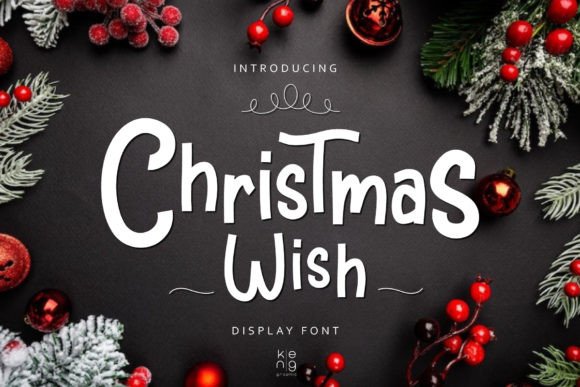
Christmas Wish Font: The Ultimate Guide to Elevate Your Holiday Creations
As the holiday season approaches, designers and crafters are on the lookout for the perfect font to add a touch of magic to their Christmas creations. Look no further than the Christmas Wish font, a bold and modern handwritten font that has been expertly designed to give your projects a whimsical look. In this comprehensive article, we’ll dive into the world of Christmas Wish font, exploring its features, benefits, and uses, as well as provide tips and inspiration for incorporating it into your holiday designs.
What is Christmas Wish Font?
Christmas Wish font is a bold and modern handwritten font that has been carefully crafted to bring a touch of festive fun to your designs. With its whimsical and playful style, this font is perfect for creating eye-catching holiday projects, from Christmas cards and invitations to social media graphics and website headers.
Expertly designed to take your creativity further, Christmas Wish font is a versatile typeface that can be used for a wide range of applications. Whether you’re a designer, crafter, or DIY enthusiast, this font is sure to become a go-to in your holiday design toolkit.
Benefits of Using Christmas Wish Font
So why choose Christmas Wish font for your holiday designs? Here are just a few benefits of using this fantastic font:
- Unique and eye-catching: Christmas Wish font is a one-of-a-kind typeface that will add a touch of personality to your designs.
- Whimsical and playful: This font’s playful style is perfect for creating festive and fun holiday projects.
- Versatile: Christmas Wish font can be used for a wide range of applications, from digital designs to print projects.
Using Christmas Wish Font in Your Designs
So how can you use Christmas Wish font in your holiday designs? Here are a few ideas to get you started:
- Christmas cards and invitations: Add a personal touch to your holiday cards and invitations with this beautiful font.
- Social media graphics: Use Christmas Wish font to create eye-catching social media graphics that will stand out from the crowd.
- Website headers: Add a festive touch to your website headers with this bold and modern font.
- Holiday crafts: Use Christmas Wish font to add a personal touch to your holiday crafts, such as DIY decorations and gift tags.
Tips for Getting the Most Out of Christmas Wish Font
Here are a few tips for getting the most out of Christmas Wish font:
- Experiment with different colors: Try pairing Christmas Wish font with different colors to create a unique and eye-catching look.
- Use it with other fonts: Combine Christmas Wish font with other fonts to create a bold and modern look.
- Pay attention to spacing: Make sure to adjust the spacing between letters to ensure that your text is easy to read.
- Have fun: Don’t be afraid to get creative and try new things with Christmas Wish font!
Christmas Wish Font Inspiration
Need some inspiration for your holiday designs? Here are a few ideas to get you started:
Christmas Card
Create a beautiful Christmas card with Christmas Wish font and a festive design.
Holiday Invitation
Design a festive holiday invitation with Christmas Wish font and a touch of glitter.
Social Media Graphic
Create a eye-catching social media graphic with Christmas Wish font and a bold color scheme.
| Font Name | Christmas Wish Font |
| Author | keng graphic |
In conclusion, Christmas Wish font is a bold and modern handwritten font that is perfect for adding a touch of magic to your holiday designs. With its whimsical and playful style, this font is sure to become a go-to in your holiday design toolkit. Whether you’re a designer, crafter, or DIY enthusiast, Christmas Wish font is the perfect choice for creating eye-catching holiday projects.